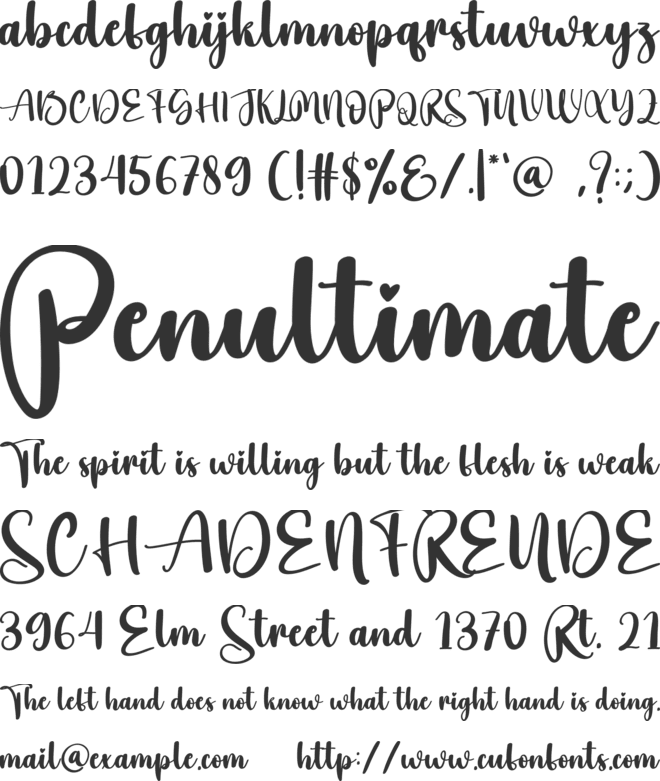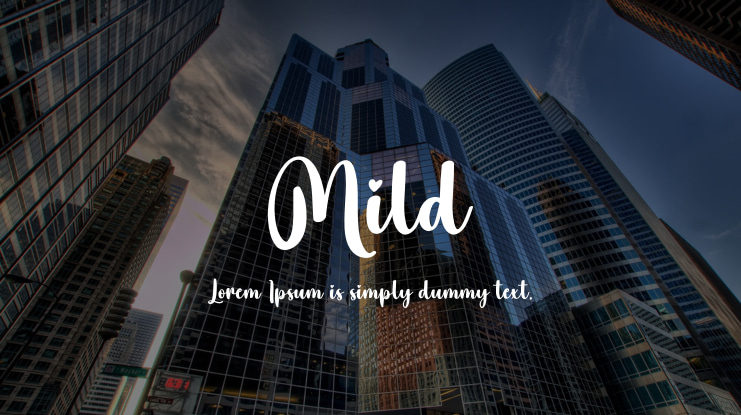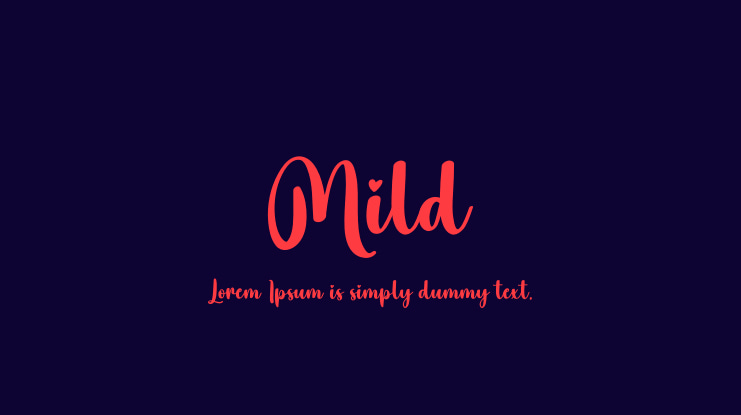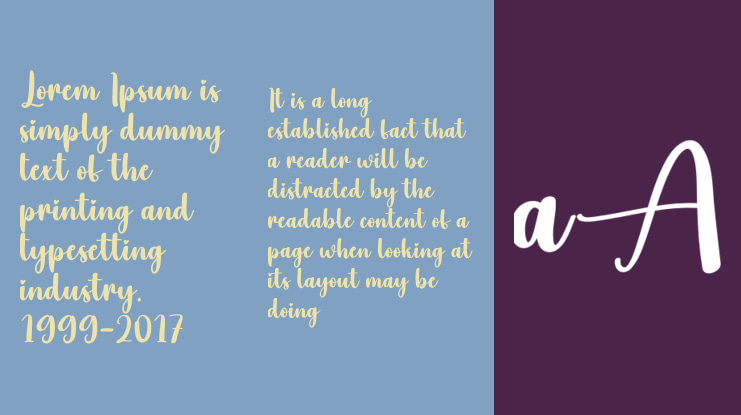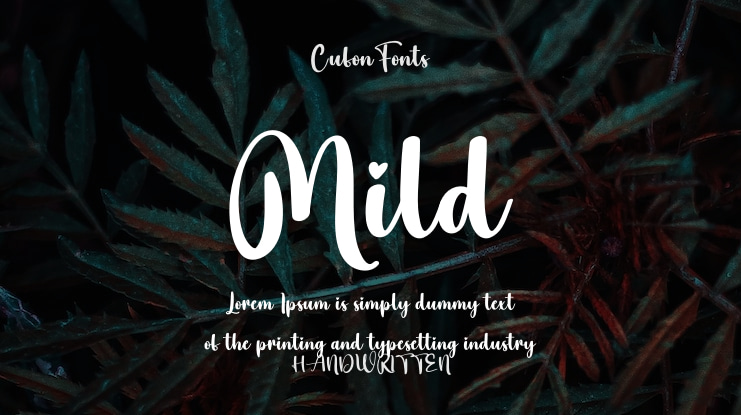
Mild Font
PRODUCT DESCRIPTION
Our latest style letters are perfect for various applications including wall displays, wedding invitations, social media logos, advertisements, product packaging, designs, labels, photography, watermarks, invitations, stationery, and any project that demands elegant handwriting.